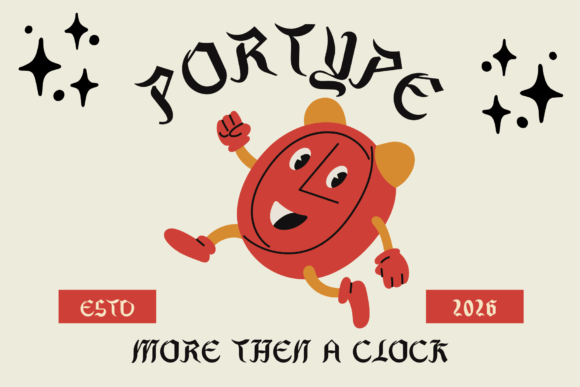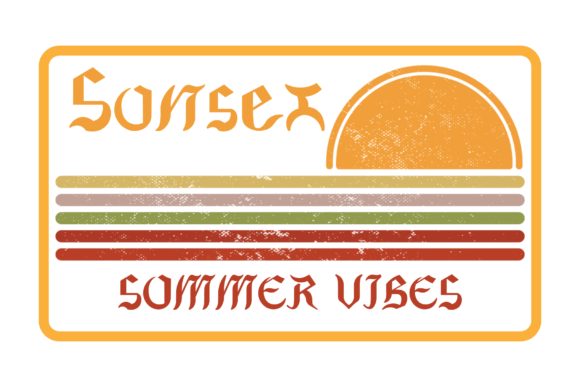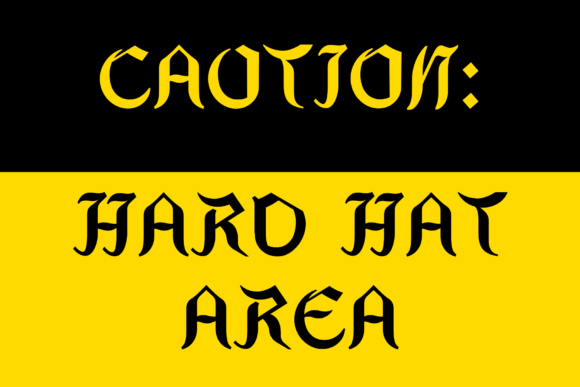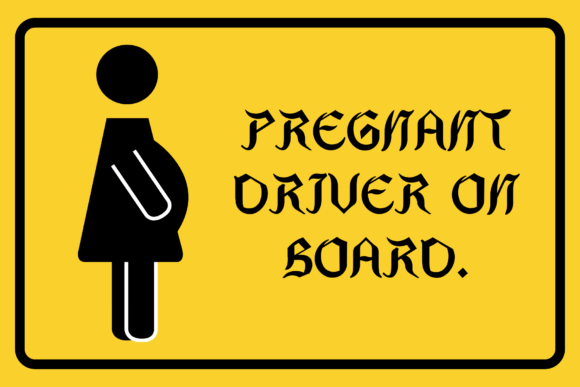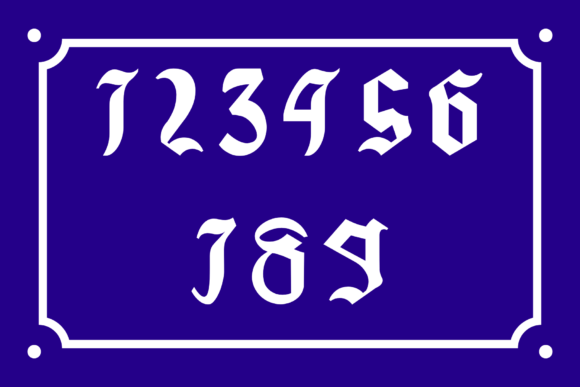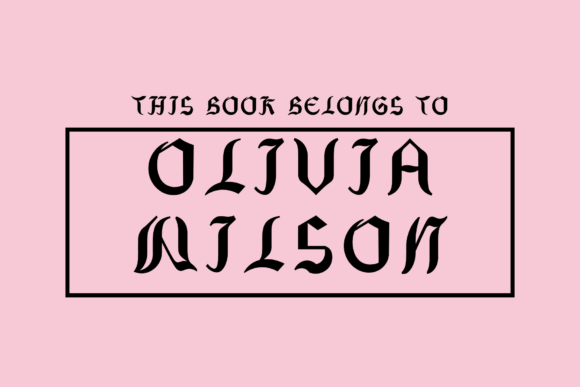
Introduction to Kingthings Gothic Font
Have you ever stared at a blank canvas, eager to bring your creative vision to life, only to be struck by the daunting task of finding the perfect font? The words swirl in your head, begging for attention, but the right typography eludes you. That’s where Kingthings Gothic Font comes in – a game-changing design resource that brings drama, elegance, and a touch of history to your high-quality creative project.
Developed by Portype, this unique font is a masterful blend of traditional gothic elements and modern design sensibilities. Its intricate details, bold strokes, and sharp, angular lines evoke the classic aesthetic of medieval manuscripts and old-world calligraphy. Whether you’re designing a poster, book cover, or branding that needs to stand out, Kingthings Gothic Font is the perfect choice for adding a powerful and evocative charm to your work.
What sets Kingthings Gothic Font apart is its remarkable balance of legibility and ornamental style, making it an invaluable asset for designers. Plus, its transparent background makes it easy to layer and manipulate, allowing for endless creative possibilities. And the best part? It’s available for free download, making it an accessible design resource for creatives of all levels.
Key Features of Kingthings Gothic Font
- High-quality design resource ideal for creative projects, including posters, flyers, and brochures.
- Unique, gothic-inspired design aesthetic, perfect for adding a touch of mystery and elegance to your creative project.
- Designed by Kingthings, a renowned font designer, guaranteeing a high level of quality and attention to detail.
Honest Review: Kingthings Gothic Font
I recently had the pleasure of working with the Kingthings Gothic Font in a creative project, and I must say it exceeded my expectations. This high-quality design resource is perfect for anyone looking to add a touch of elegance to their design.
Here are some of the things that work well with the Kingthings Gothic Font: ✨
- Unique and intricate design, making it perfect for titles and headings.
However, there are a few limitations to keep in mind: ⚠️
- The font does not include a transparent background, which may be a limitation for designers who need to use it on top of images or other backgrounds.
Overall, I was impressed with the Kingthings Gothic Font and would definitely recommend it to designers looking for a high-quality, free design resource.
Tips for Getting the Most Out of Kingthings Gothic Font
For best results, use Kingthings Gothic Font in conjunction with a transparent background to create a striking visual effect. You can also experiment with different font sizes, colors, and combinations to create a unique and eye-catching design.
Kingthings Gothic Font is a versatile design resource that can be used in a variety of creative projects, including branding, packaging, and advertising. It’s particularly well-suited for projects that require a touch of elegance and sophistication, such as wedding invitations, luxury product packaging, and high-end marketing materials.